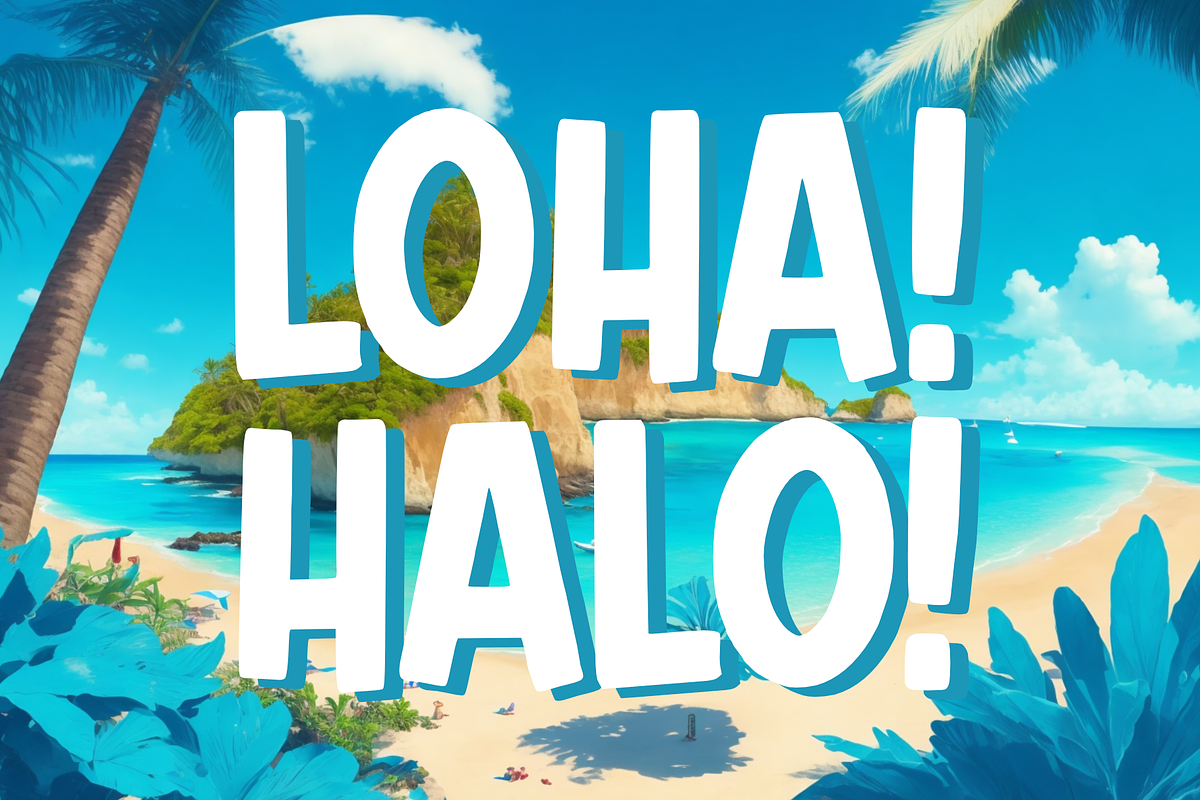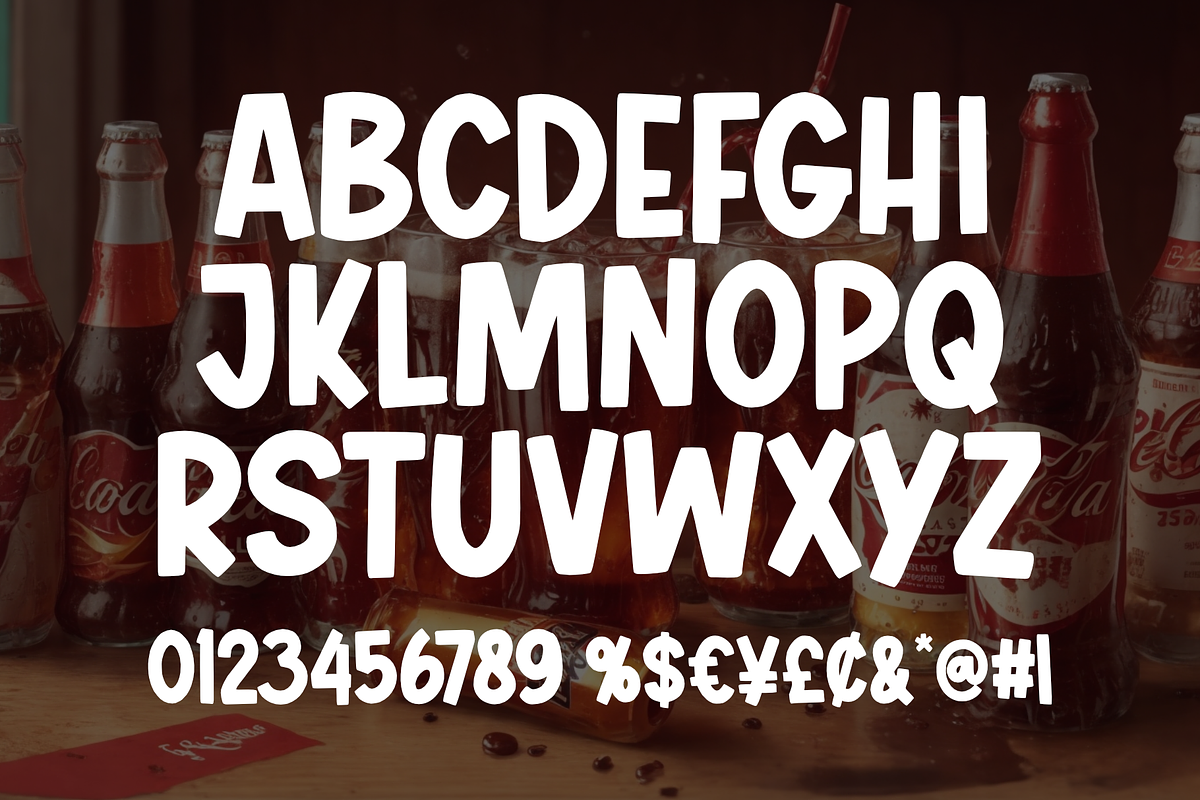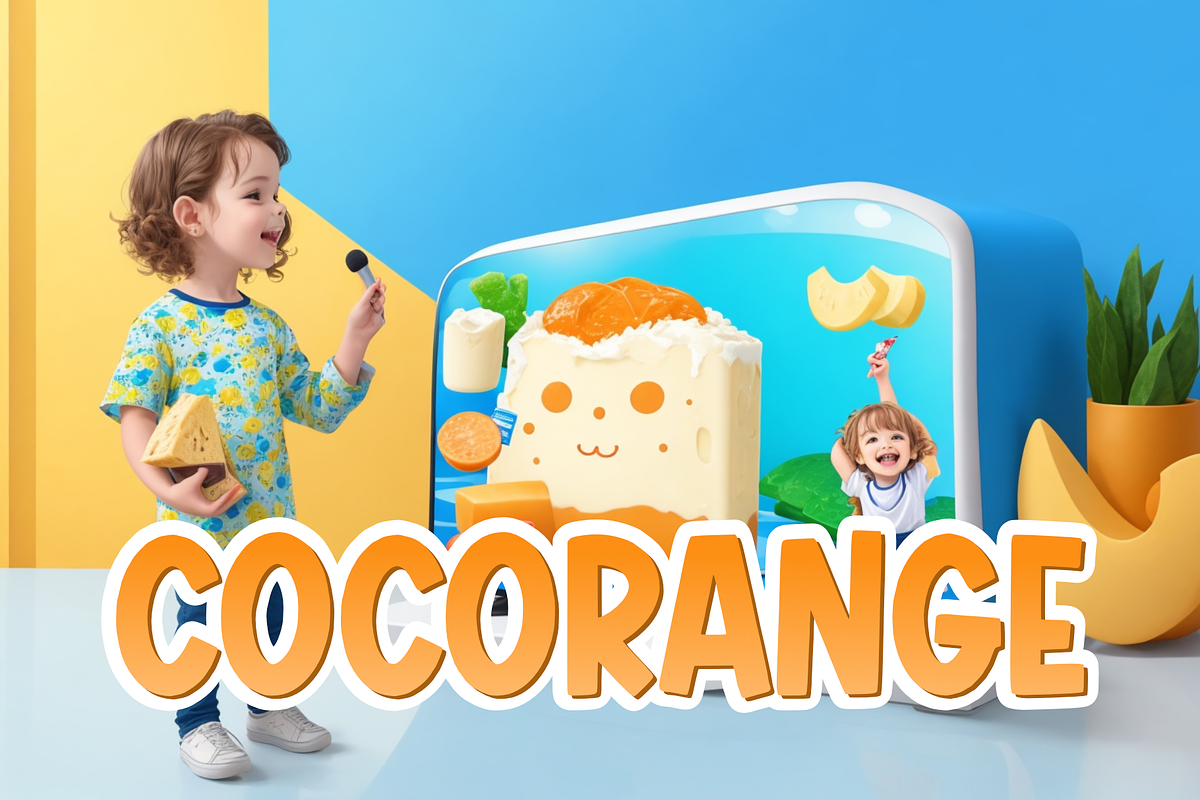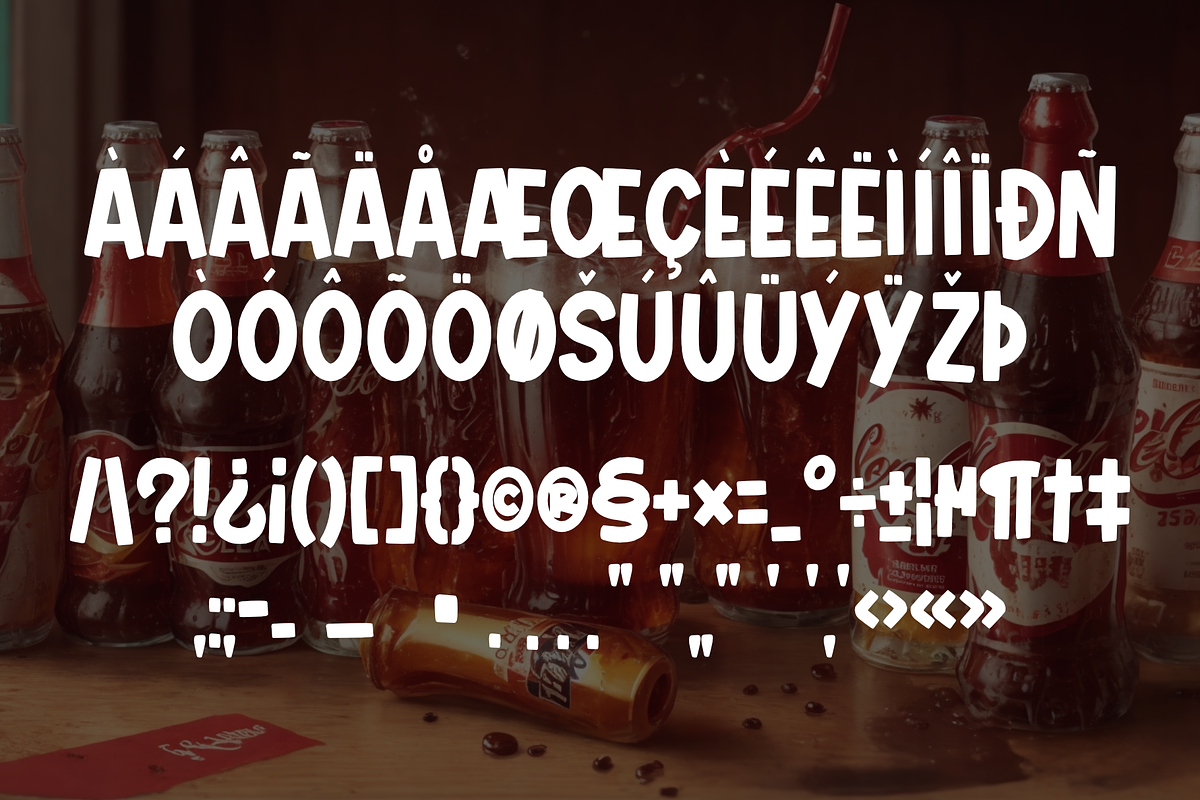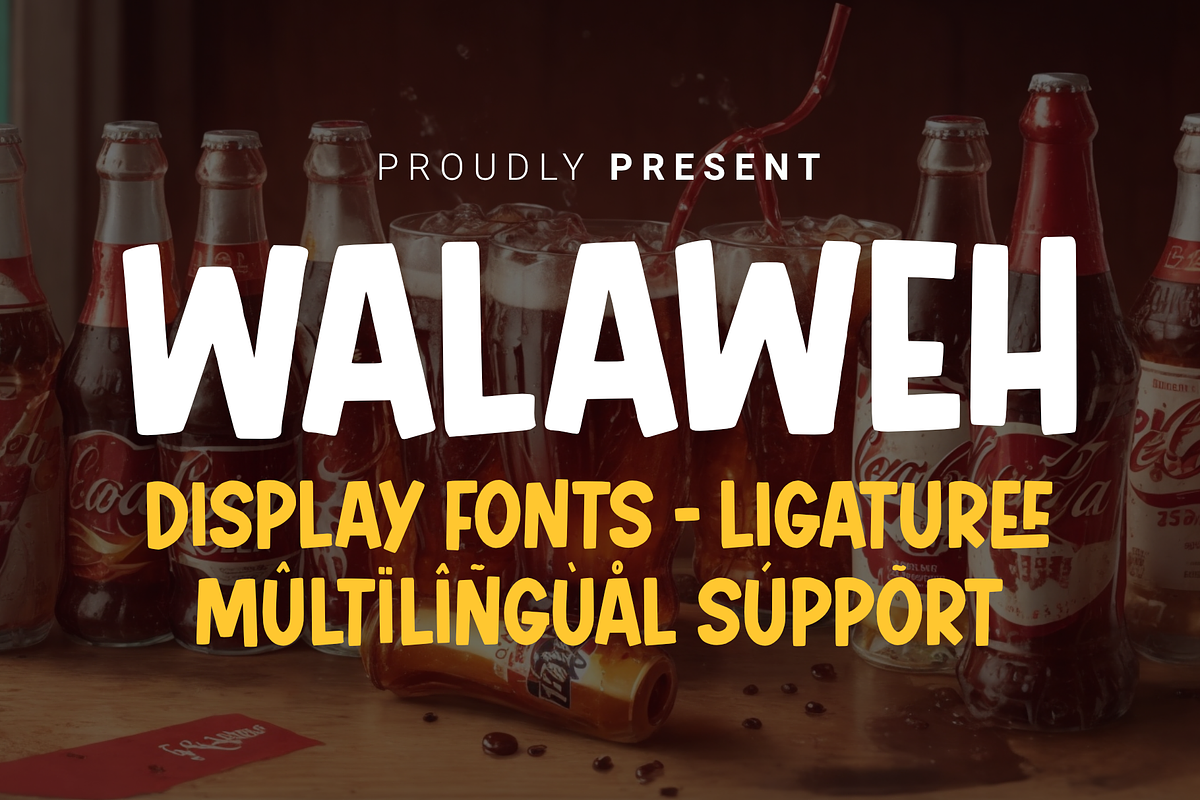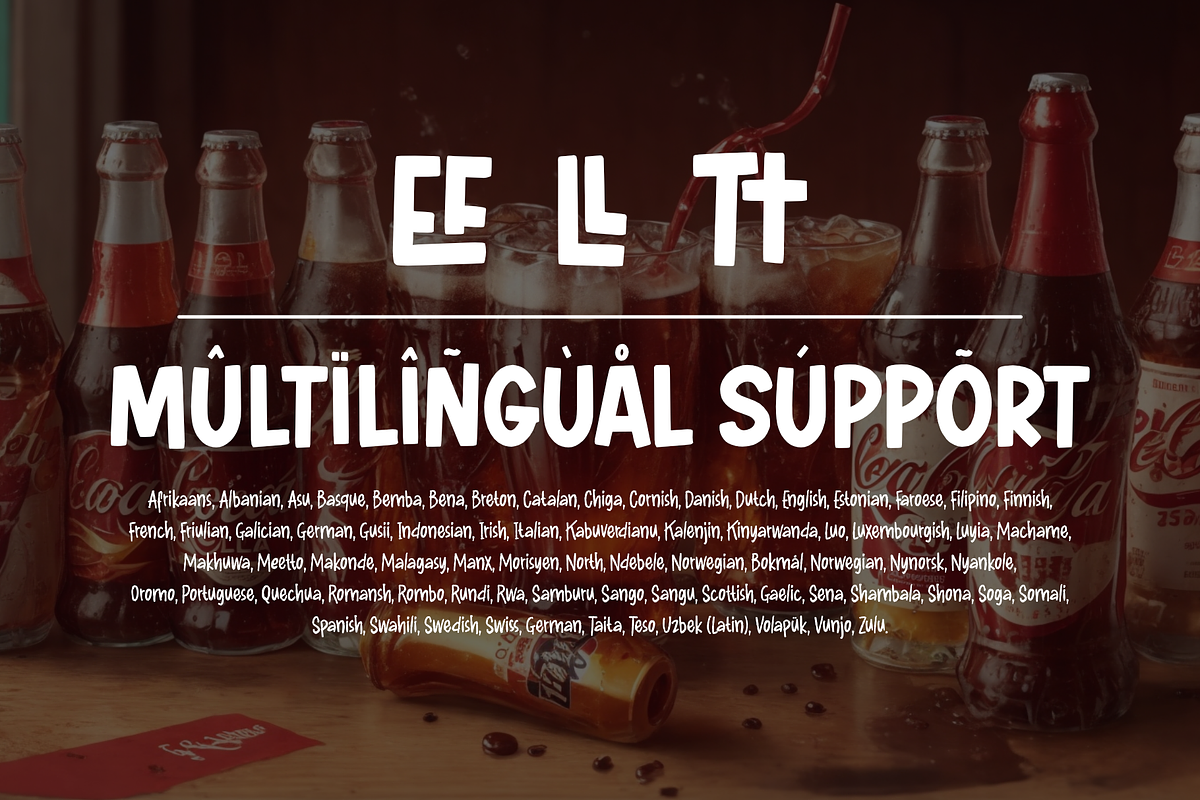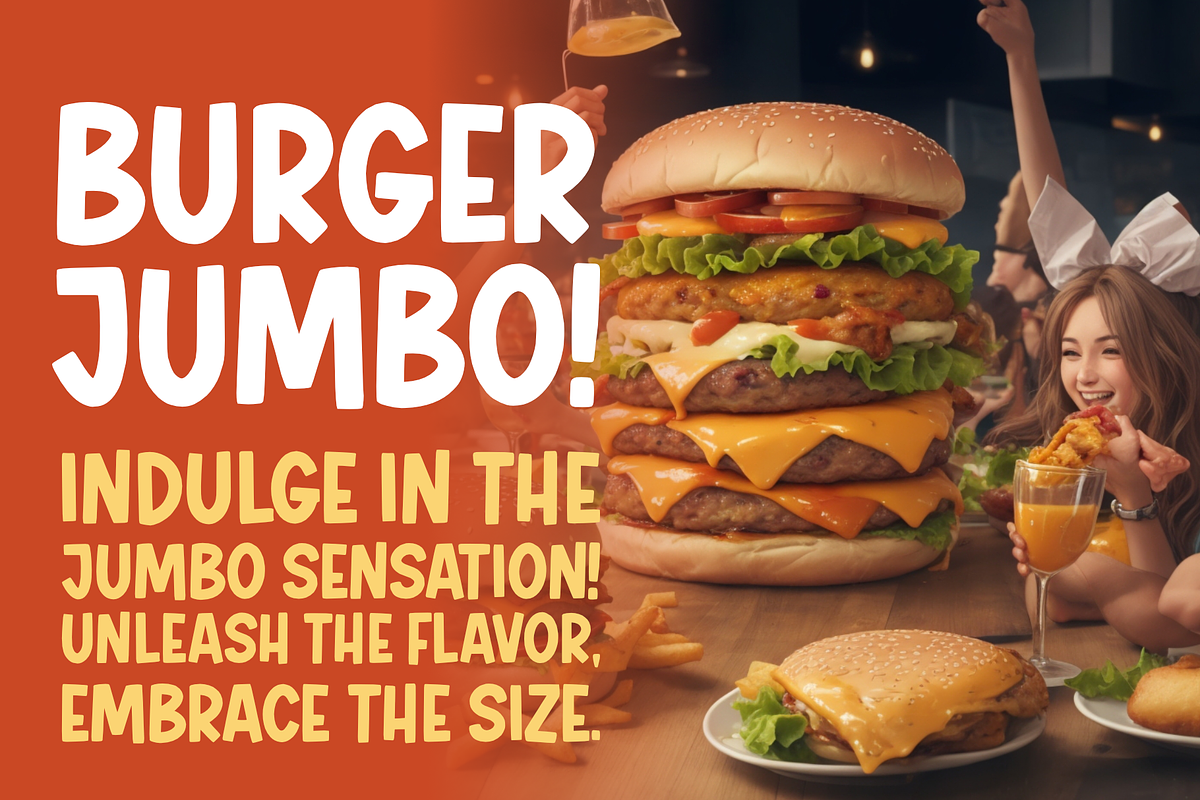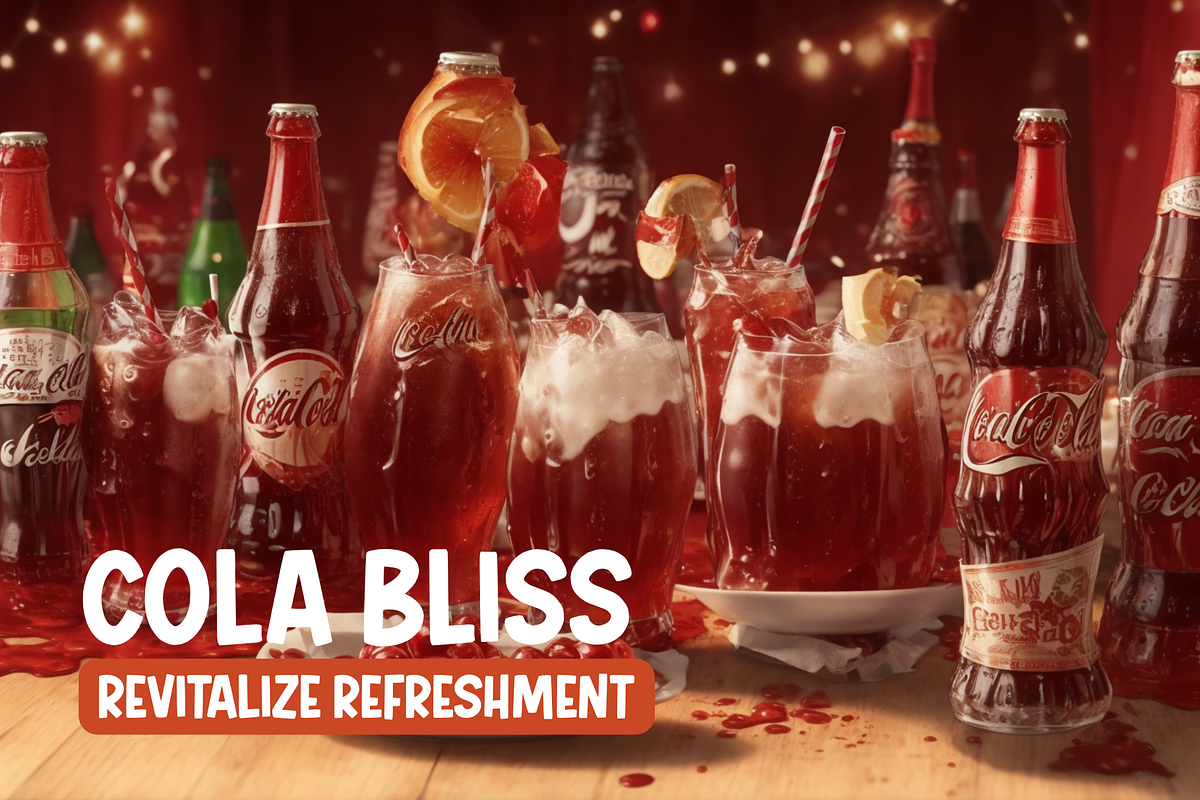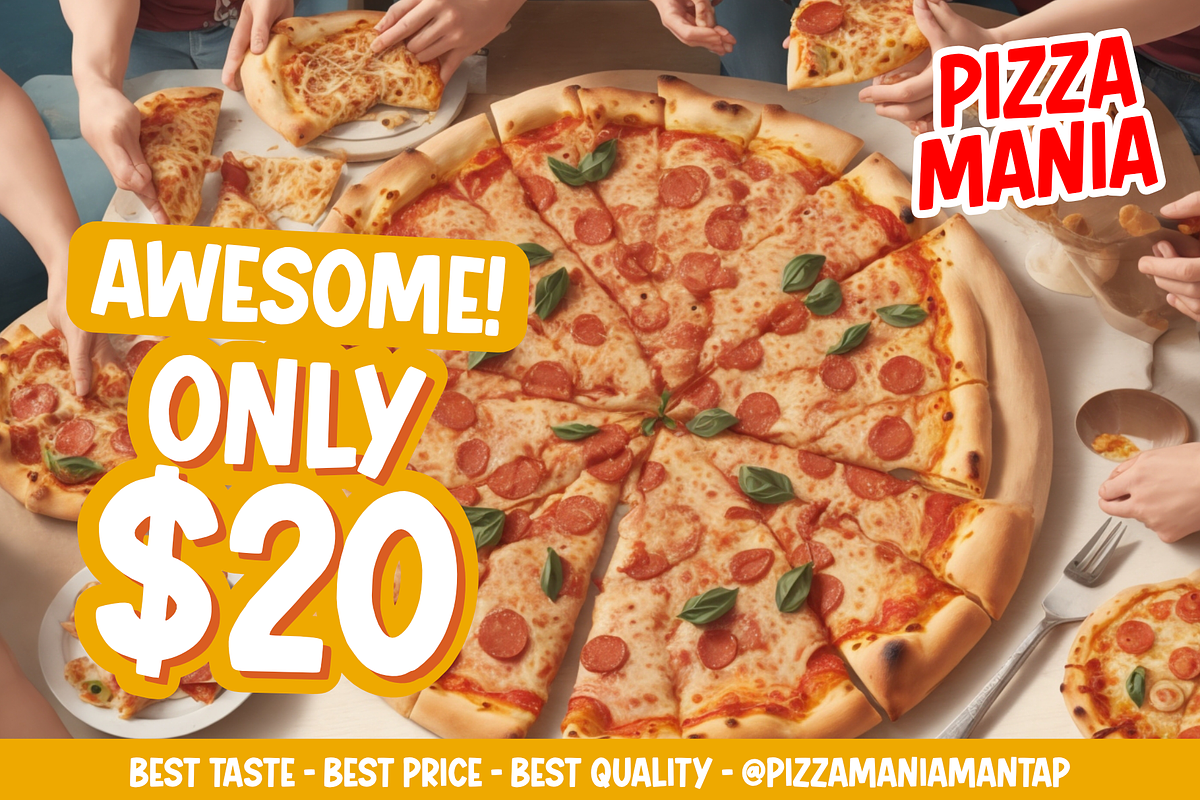
Walaweh - Display
Walaweh Font Display is a type of font that combines playfulness and firmness to provide a fresh and creative touch to social media ads, food content, product showcases, or your posters. With an exclusive and appealing design, this font is specifically crafted using only uppercase letters, creating a casual yet striking appearance. Each letter in Walaweh Font Display has a strong character and contemporary style, establishing a simple and positive atmosphere. With uppercase letters, the font adds a dramatic touch to the text, ensuring your message stands out amidst the abundance of information on social media platforms or promotional posters. Ideal for building a strong brand identity and conveying messages clearly, Walaweh Font Display with its uppercase letters is the perfect choice for creating a presence that captures attention in the digital world, leaving an unforgettable impression on your audience.
- Multilingual Accent